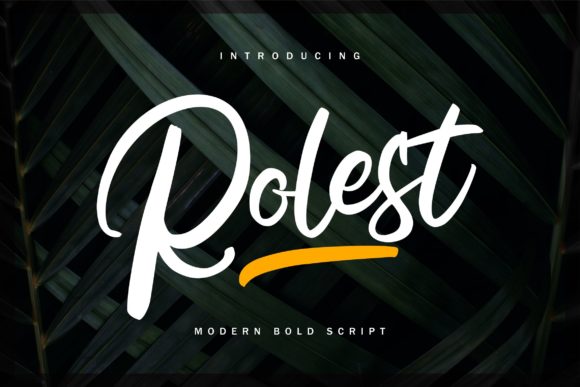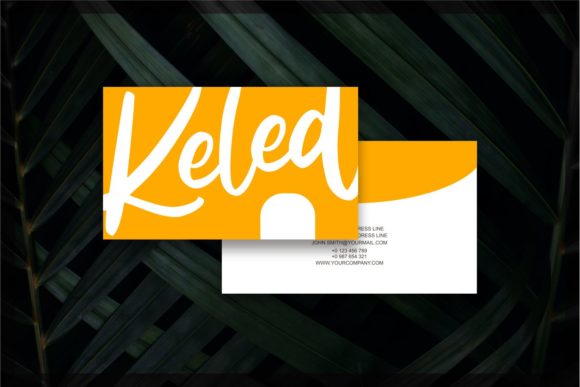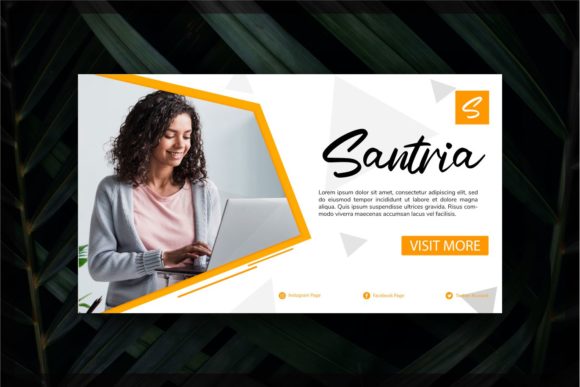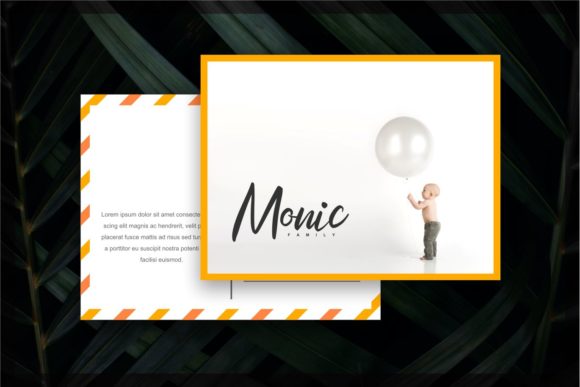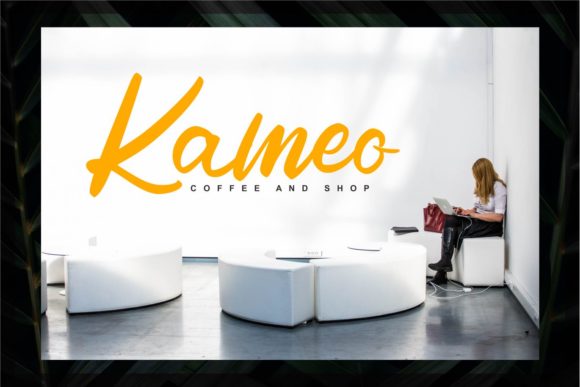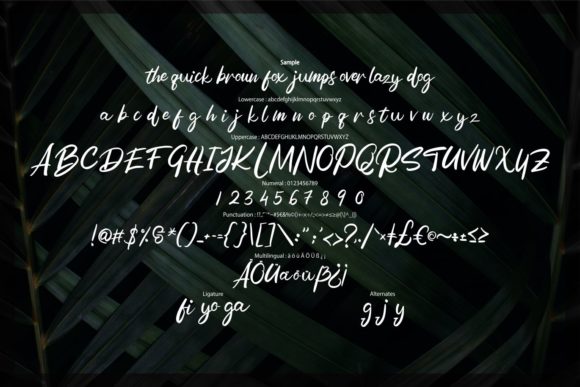
Rolest Font
About Rolest Font
Rolest features a classic calligraphy style that will turn any design project into a true standout. Get inspired by its unique charm!